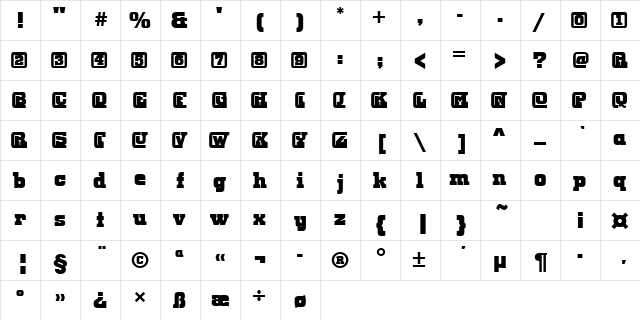
URWOkenIniD Regular
Design Context for URWOkenIniD Typeface
URWOkenIniD is a composed and adaptable typeface that performs quietly and consistently across a wide range of design contexts.